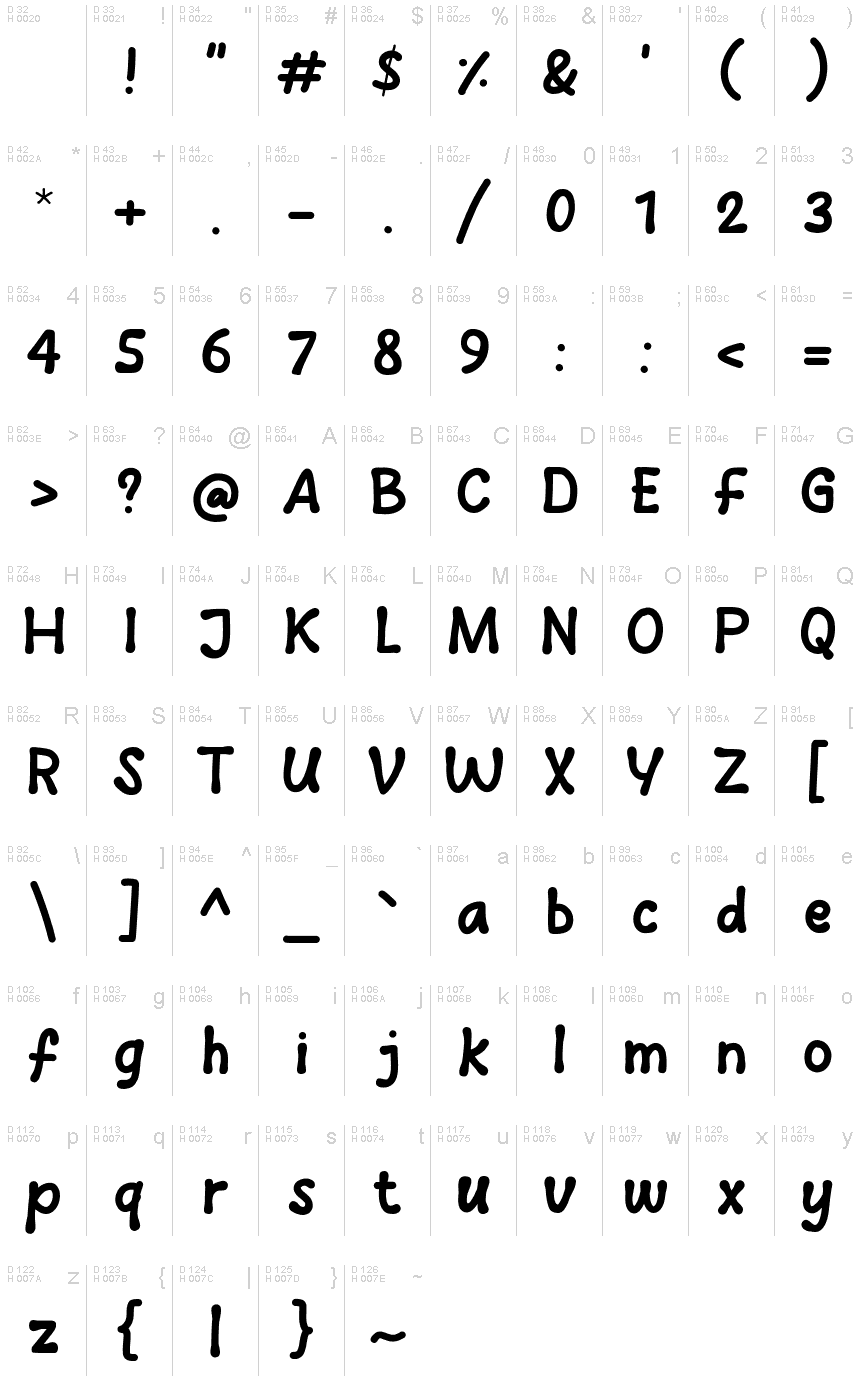
New Ramen
New Ramen, the whimsical creation of font designer Khurasan, is a delightful display font that exudes a playful and quirky charm.
With its cartoony style and eye-catching design, New Ramen is perfect for projects aimed at children's books, toy packaging, or animated movies. Its bold and vibrant letters make it an ideal choice for logo designs or branding campaigns seeking to capture attention and leave a lasting impression. This versatile font can also bring a touch of fun to event posters, website headers, or social media graphics.